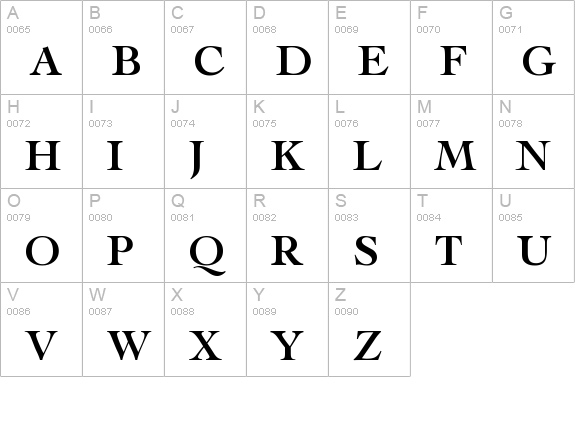
Lega-Bold is a strong, high-contrast variant in the Lega typeface family \xE2\x80\x94 well suited to headlines, attention-grabbing titles, and strong calls-to-action.
The Lega-Bold font is a striking and modern typeface that exudes confidence and strength. Its bold and clean lines make it perfect for making a statement in various design projects. Whether you're creating a poster, logo, or any other graphic design, Lega-Bold will surely stand out and grab attention. What's even better is that Lega-Bold is available for free download at FontsMarket.com. This means you can easily access this stylish font and use it in your projects without any cost. Don't miss out on this fantastic opportunity to enhance your designs with the Lega-Bold font today!